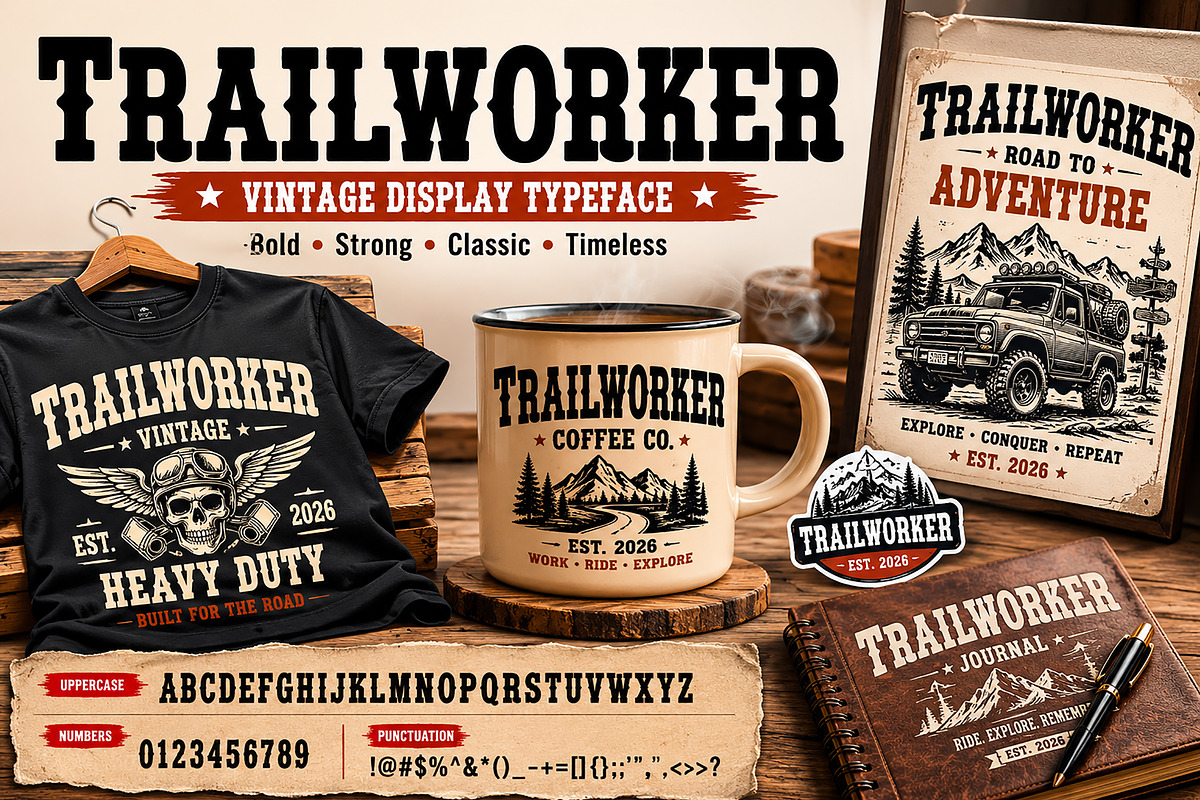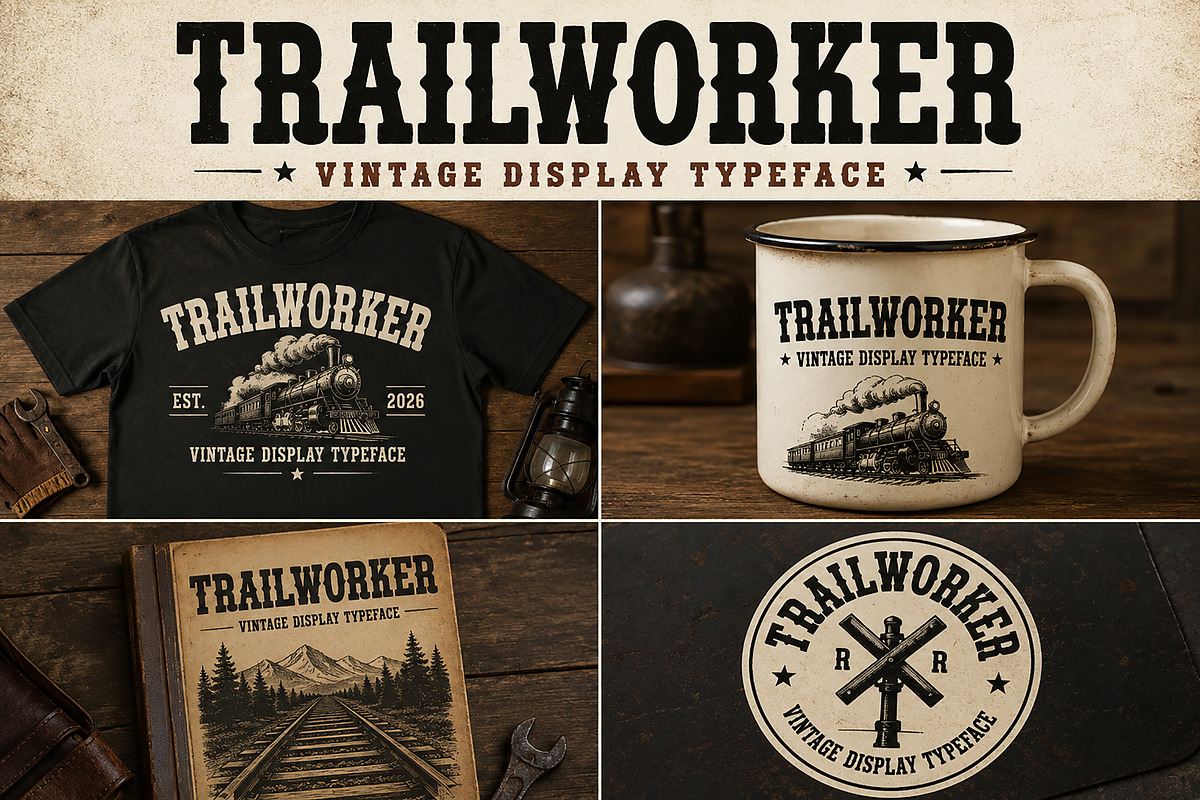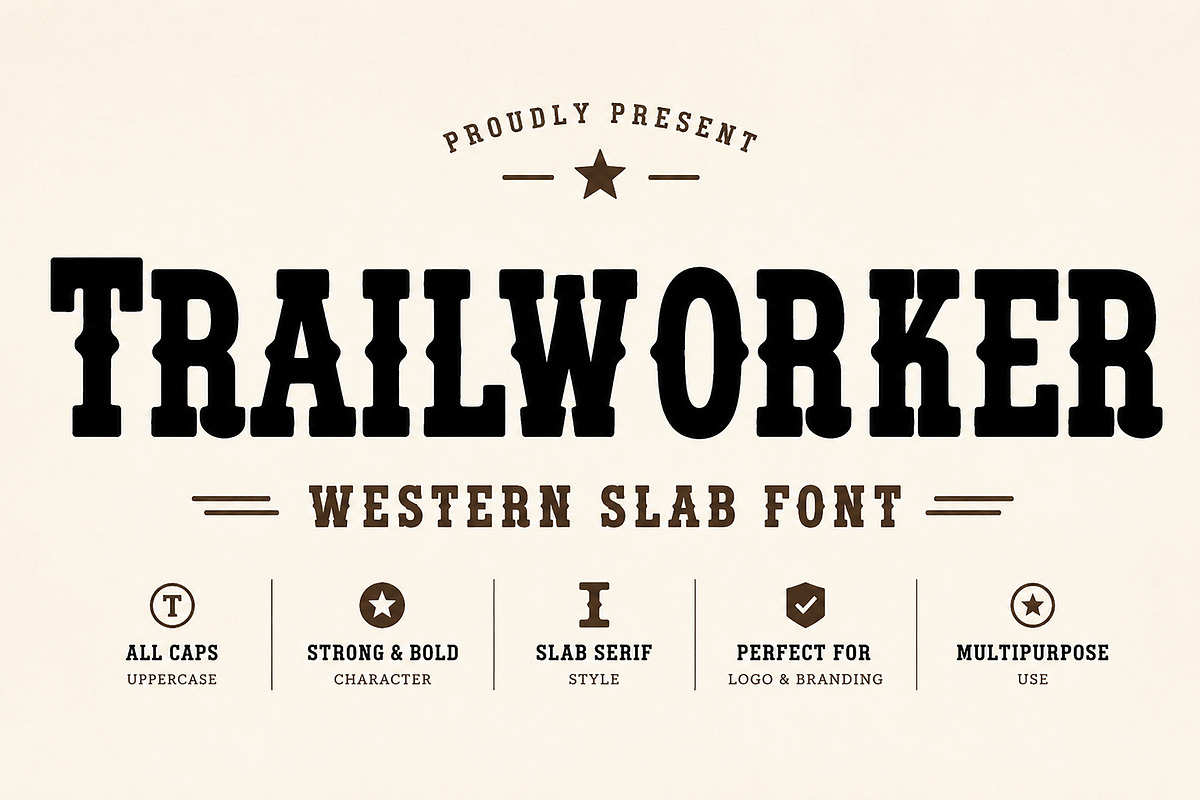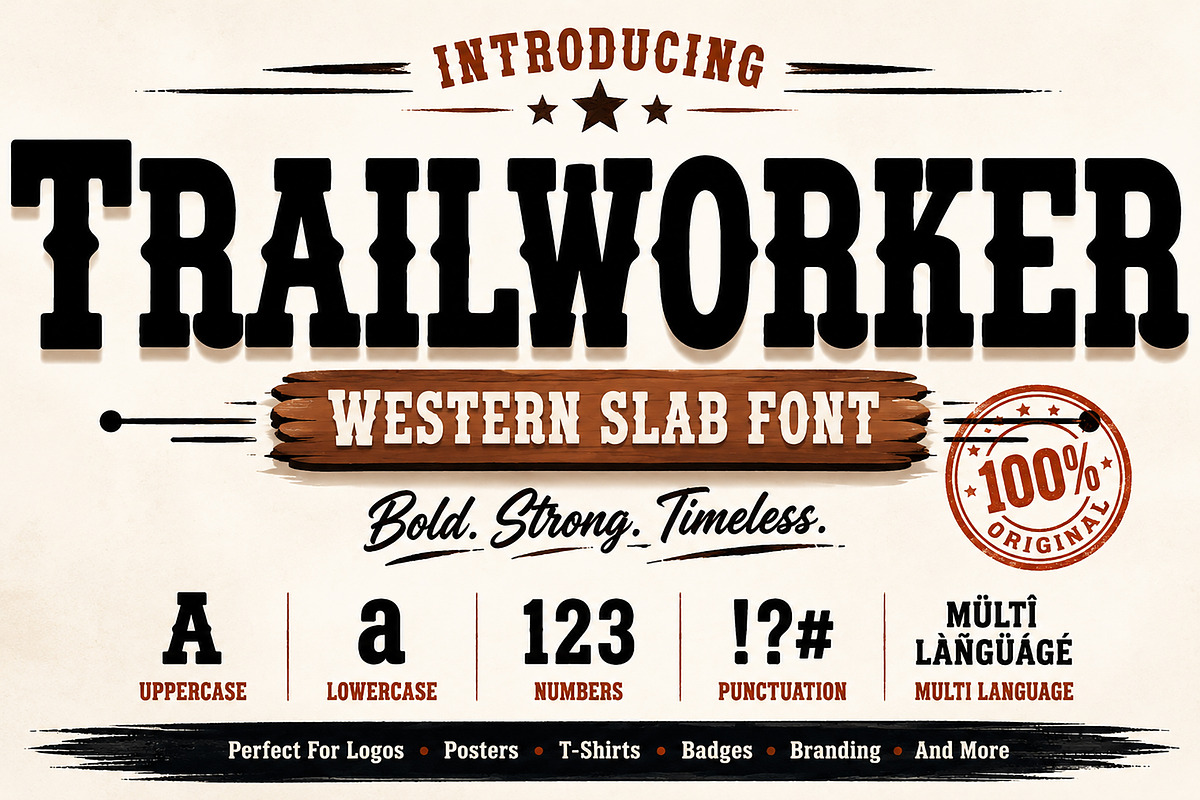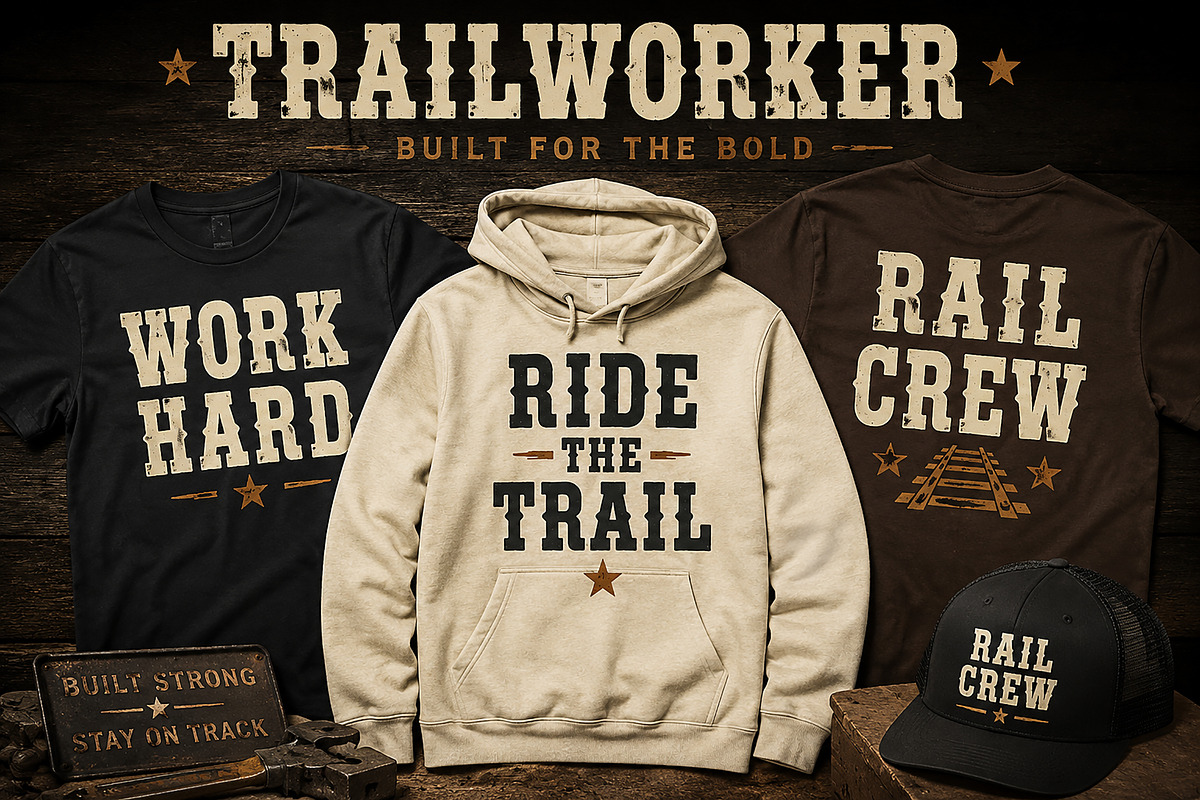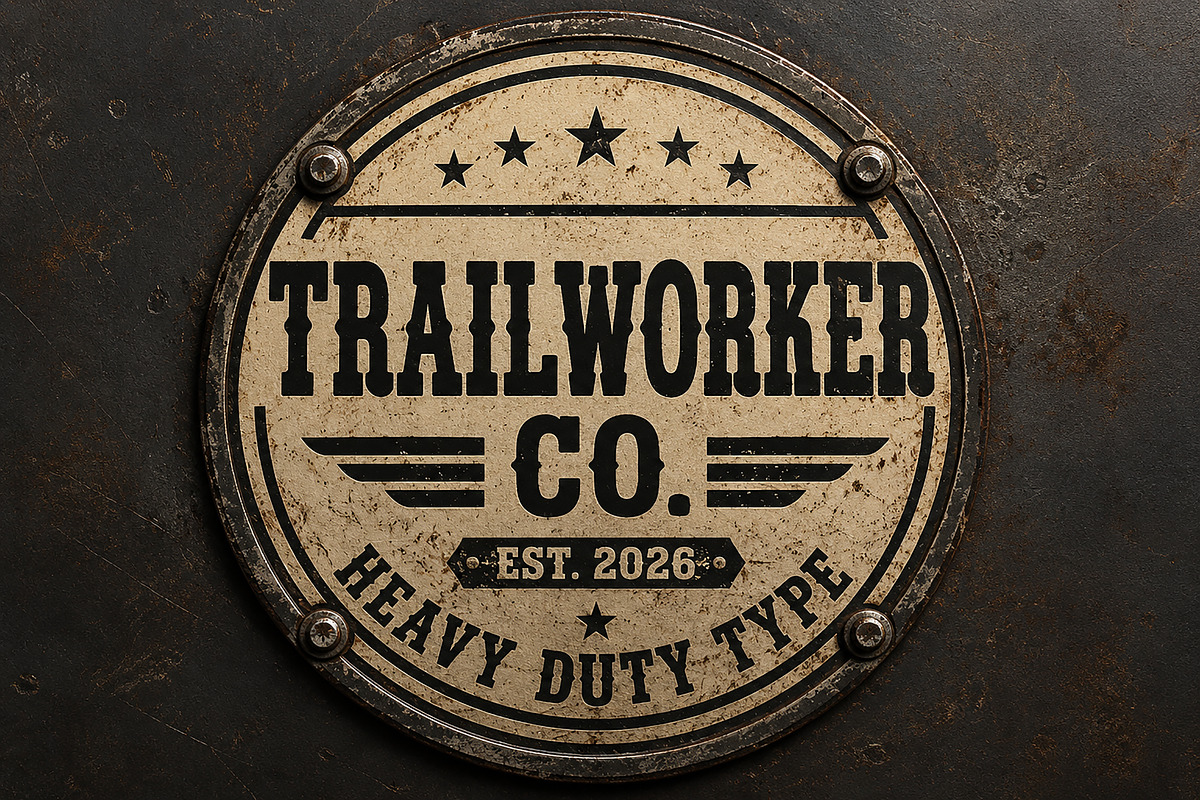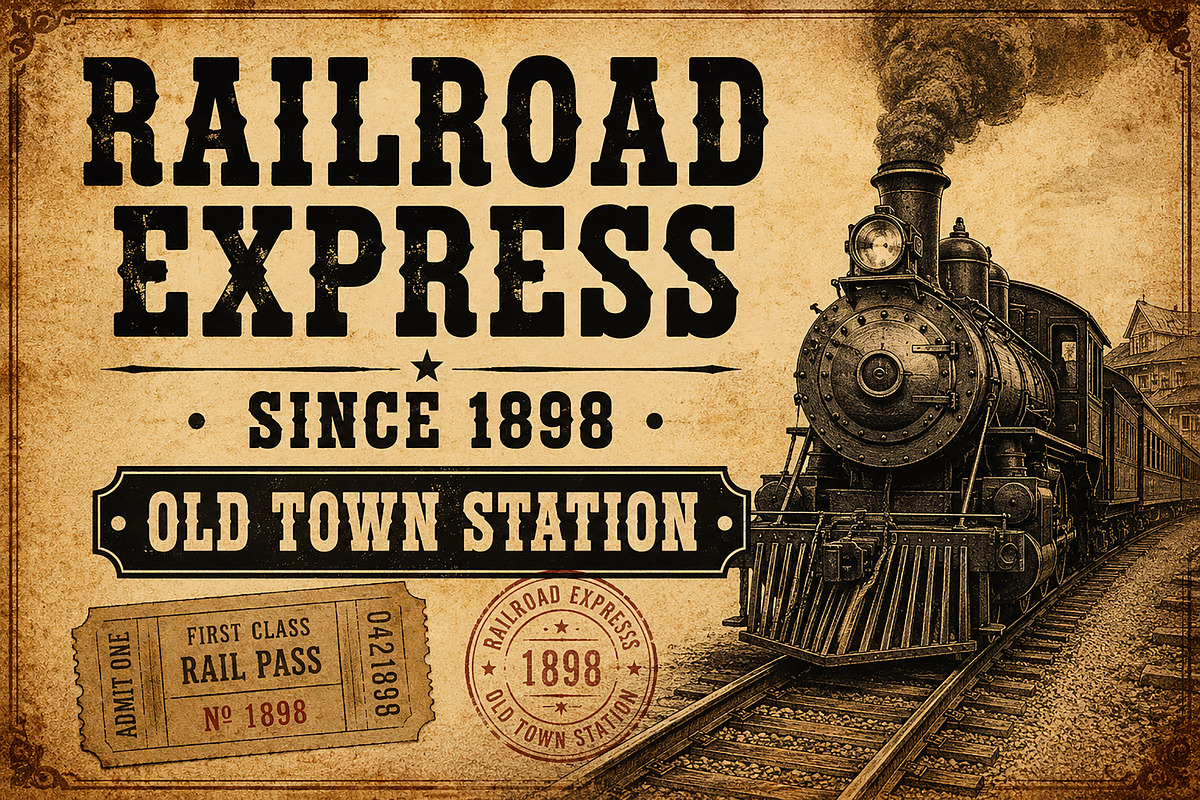
Trailworker
Trailworker – Vintage Western Slab Font
Trailworker is a bold vintage display font inspired by old railroad signage, industrial workshop labels, western typography, and rugged Americana design. Featuring strong slab-serif letterforms with a timeless handcrafted feel, this font is perfect for creating eye-catching branding, retro posters, apparel graphics, badges, packaging, and logo designs.
Designed with a powerful western-industrial personality, Trailworker works beautifully for vintage branding projects, railroad-themed artwork, masculine logos, t-shirt prints, whiskey labels, workshop signage, book covers, and print-on-demand merchandise.
Whether you're creating rustic posters, western badges, adventure branding, or retro packaging, Trailworker delivers a bold and authentic statement that instantly stands out.
Western & Vintage Branding
Railroad & Industrial Posters
Logo & Badge Design
T-shirt & Apparel Graphics
Packaging & Labels
Workshop Signage
Stickers & Merchandise
Retro Advertising
Print-on-Demand Products
Uppercase Characters
Bold Slab Serif Style
Vintage Western Aesthetic
Strong Industrial Character
Easy to Use
Perfect for Display Projects